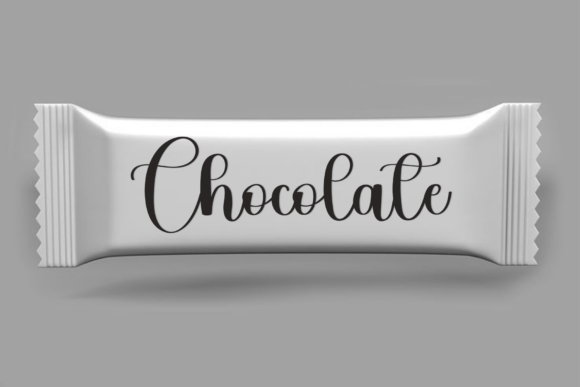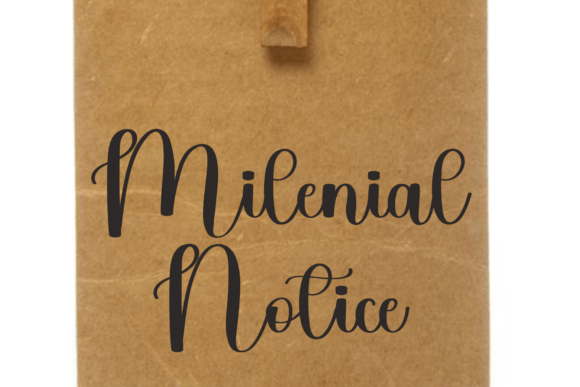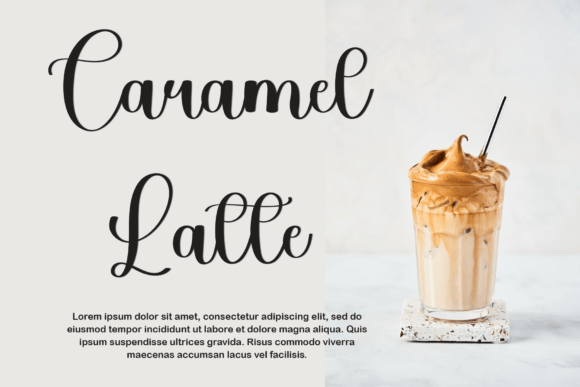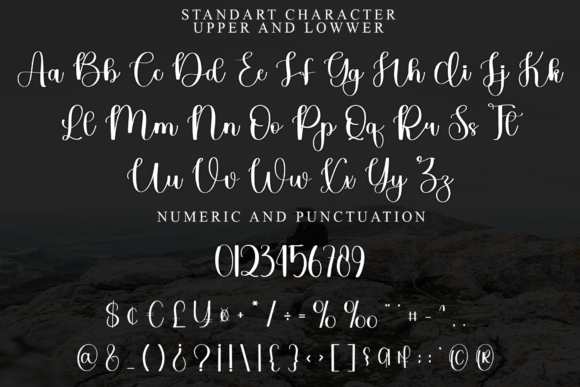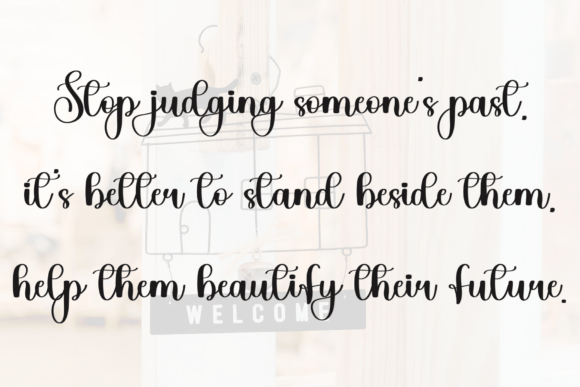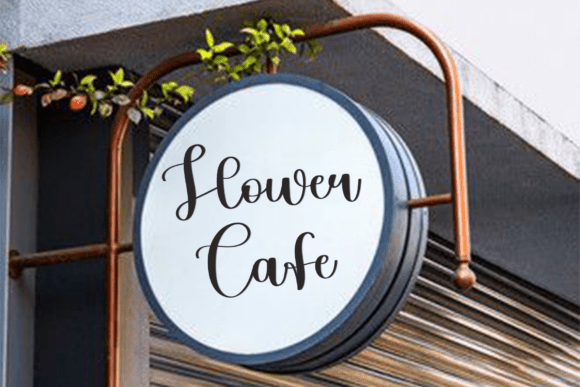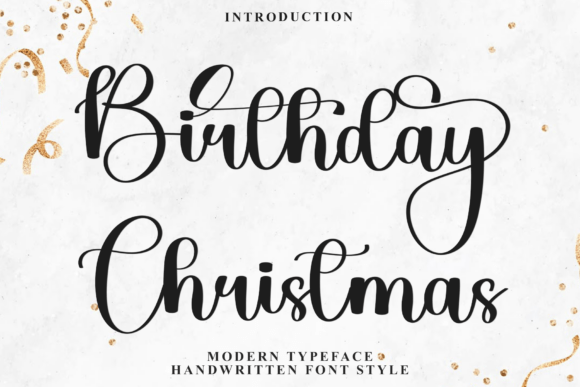
The Magic of Birthday Christmas Font: A Festive Design Essential
It’s the most wonderful time of the year — and as designers, crafters, and creative hobbyists, we’re always on the lookout for that perfect font to capture the essence of the holiday season. I still remember the year I spent hours scouring font libraries for the ideal typeface for a client’s Christmas card project. The brief was simple: create something festive, merry, and whimsical. That’s when I stumbled upon the enchanting Birthday Christmas Font ✨.
I’ve had the pleasure of working with Birthday Christmas Font on several projects, and here’s my honest review:
- ✨ Festive and Whimsical: This font embodies the spirit of Christmas with its decorative elements and playful flair.
- ✅ Ease of Use: Being PUA encoded means accessing all the amazing glyphs and ligatures is a breeze.
- 🎉 Versatility: Perfect for greeting cards, gift tags, holiday-themed projects, and more.
As with any font, there are a few minor considerations:
- ⚠️ Legibility at Small Sizes: While it’s stunning at larger sizes, it can get a bit tricky to read when used at very small sizes.
- 🤔 Overuse of Decorative Elements: It’s easy to get carried away with the whimsical elements, but balance is key to maintaining readability.
The Story Behind Birthday Christmas Font
While the exact origins of Birthday Christmas Font might be shrouded in mystery, it’s clear that its design was inspired by the joy and nostalgia of the holiday season. Imagine a designer, surrounded by holiday decorations, sipping hot cocoa, and brainstorming ways to encapsulate the magic of Christmas in a typeface. The result is a font that feels both timeless and contemporary, perfect for adding a touch of festive cheer to any project.
Q: Does Birthday Christmas Font include any additional features like ligatures or glyphs?
A: Yes, being PUA encoded, Birthday Christmas Font includes easy access to a range of glyphs and ligatures, allowing for highly customizable typography.